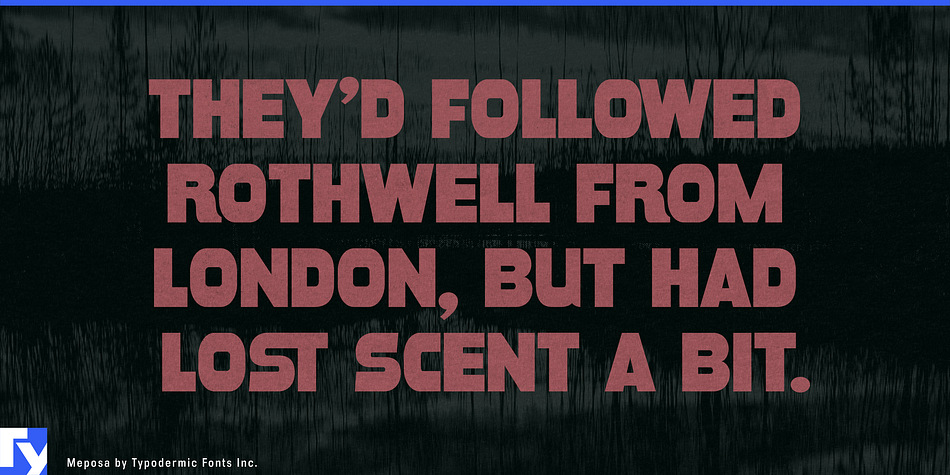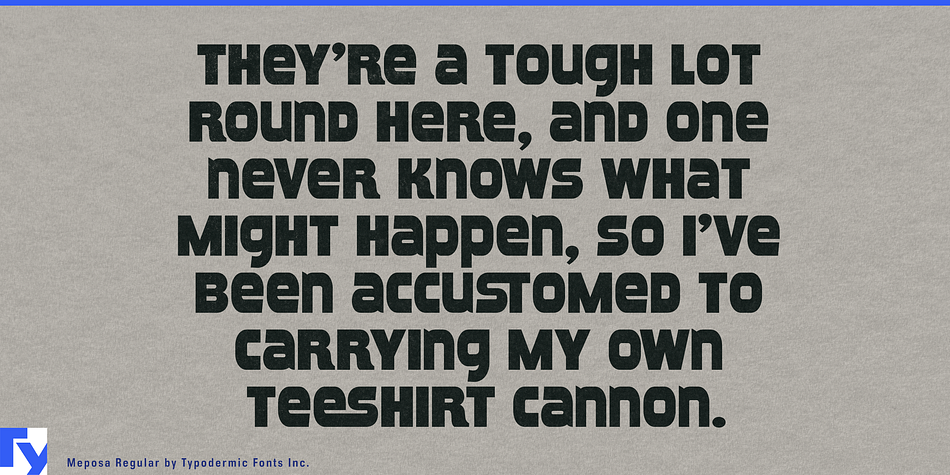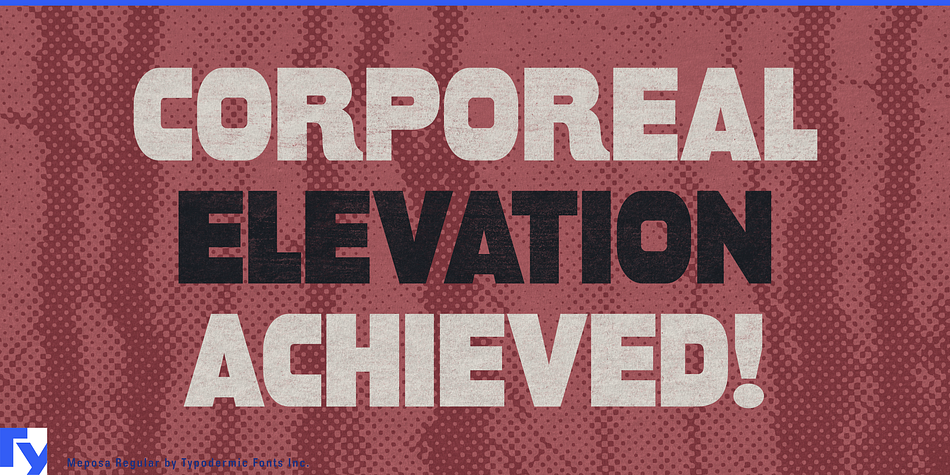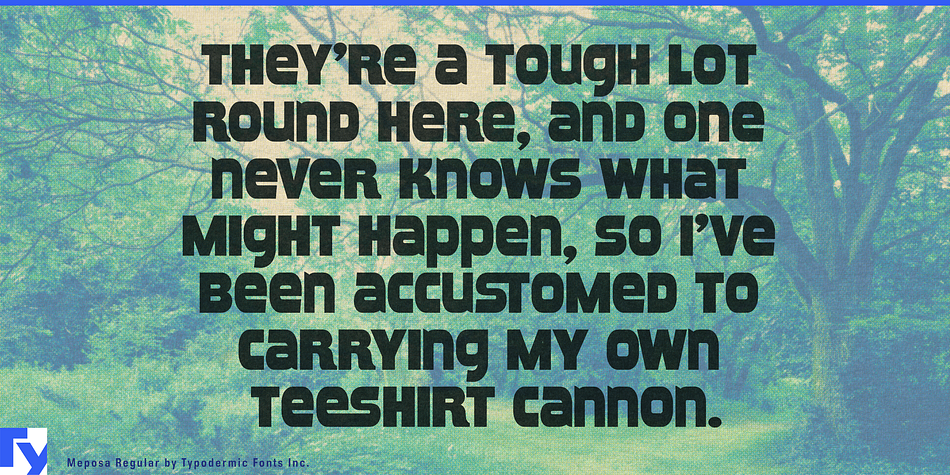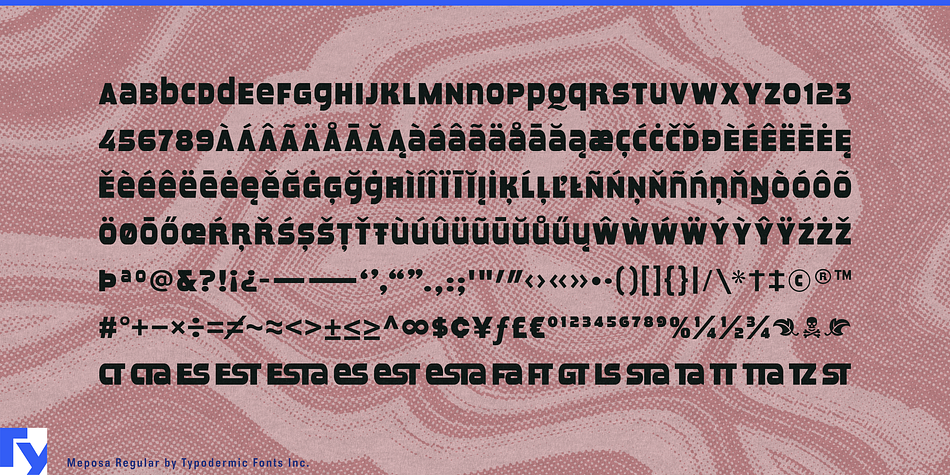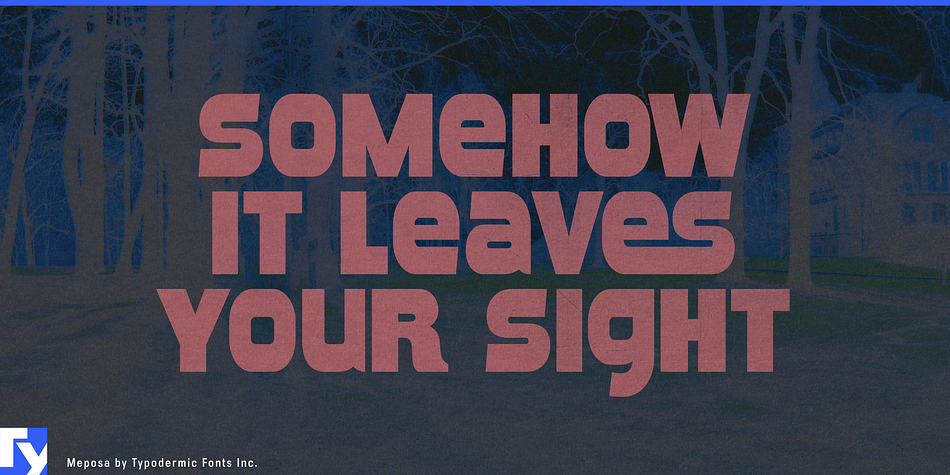
Meposa is a display and grunge font family. This typeface has two styles and was published by Typodermic Fonts Inc.
Meposa is a rugged, mixed-case display font. It features open apertures departing from its classic wood-block roots. A mutated mélange of 70s custom van culture, historical wood type, retro-tech blended with modern design elements resulted in Meposa.